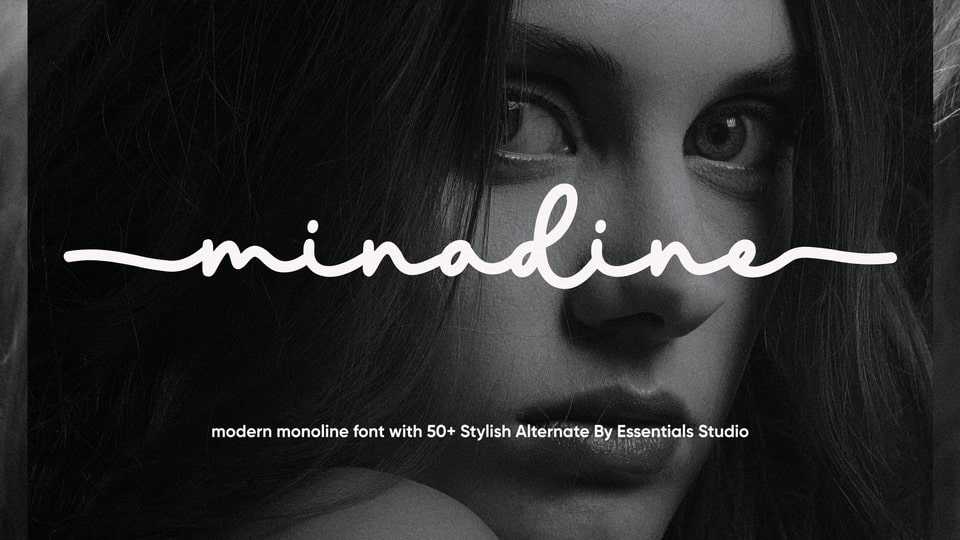
Download Minadine font, a dazzling monoline script typeface neatly crafted and highly detailed. Whatever the topic, Minadine font will be a wonderful asset to your font library, as it has the potential to enhance any creation.
Designer: Essentials Studio